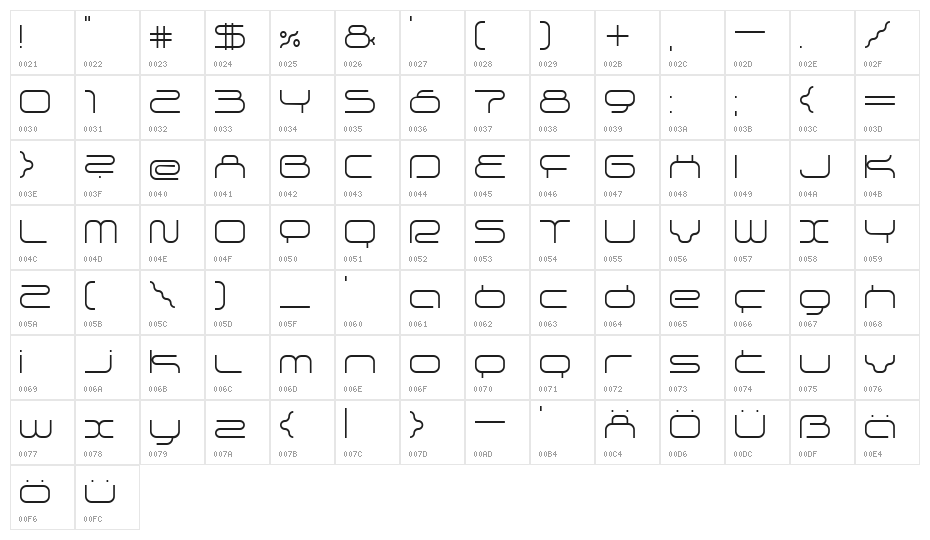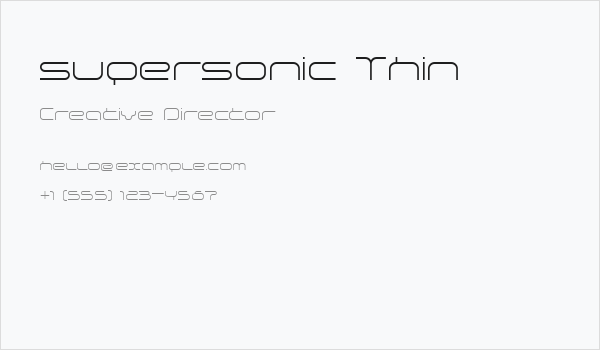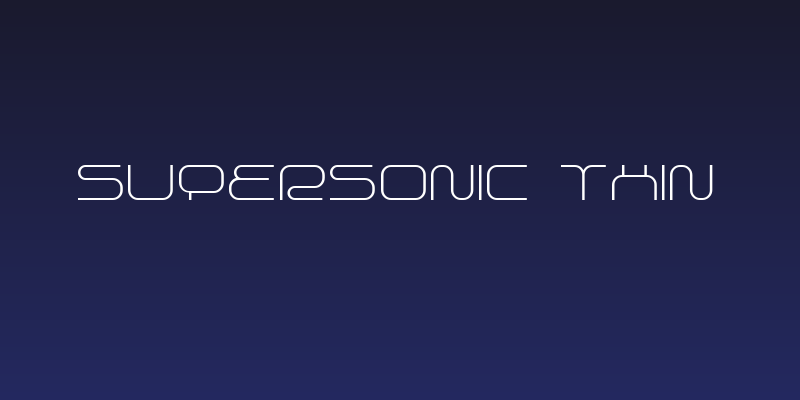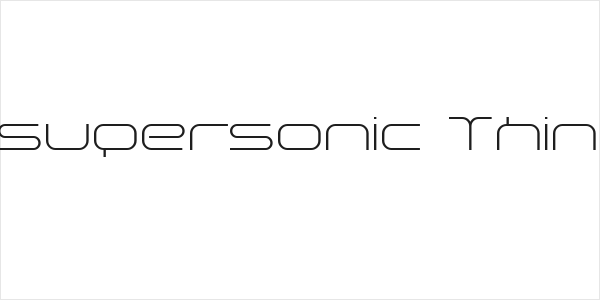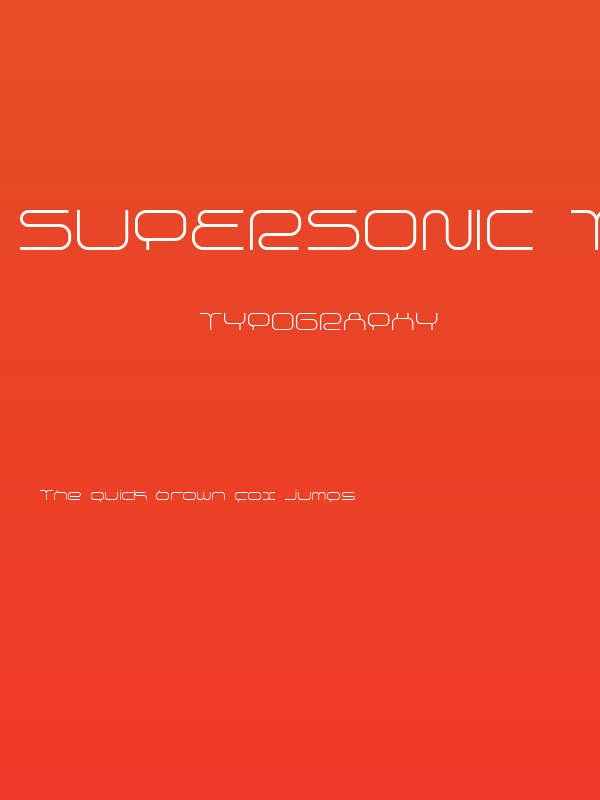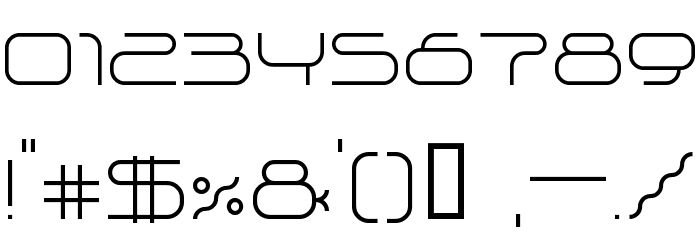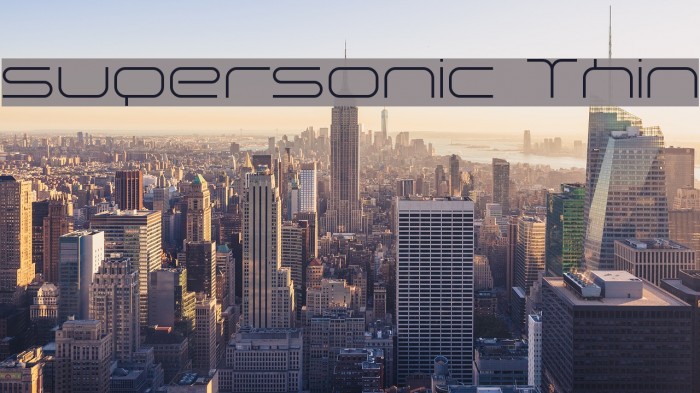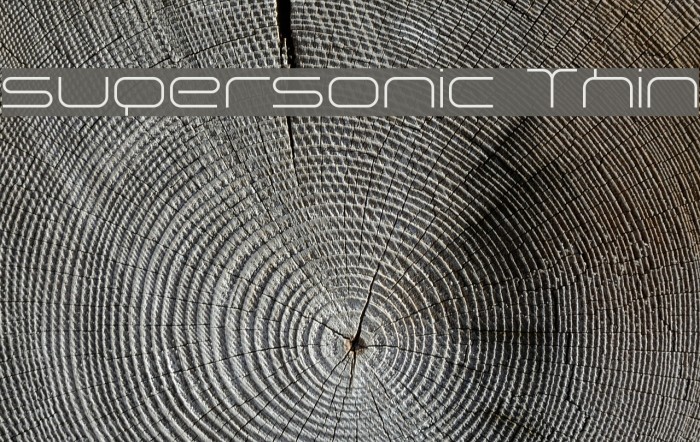
supersonic Thin Font
supersonic Thin Description
This font features a futuristic and minimalist design with a thin, linear structure. The characters are constructed with clean, geometric lines and subtle curves, giving it a sleek and modern appearance. The uppercase and lowercase letters maintain a consistent style, with a uniform height and width that enhances readability. The numerals and special characters follow the same design principles, ensuring a cohesive look across all glyphs. The font's unique style makes it suitable for projects that require a contemporary and innovative touch.
| Use Case | Headlines, Logos, Display text |
| Proposed Projects | Ideal for tech branding, modern web design, innovative product packaging, and futuristic posters. |